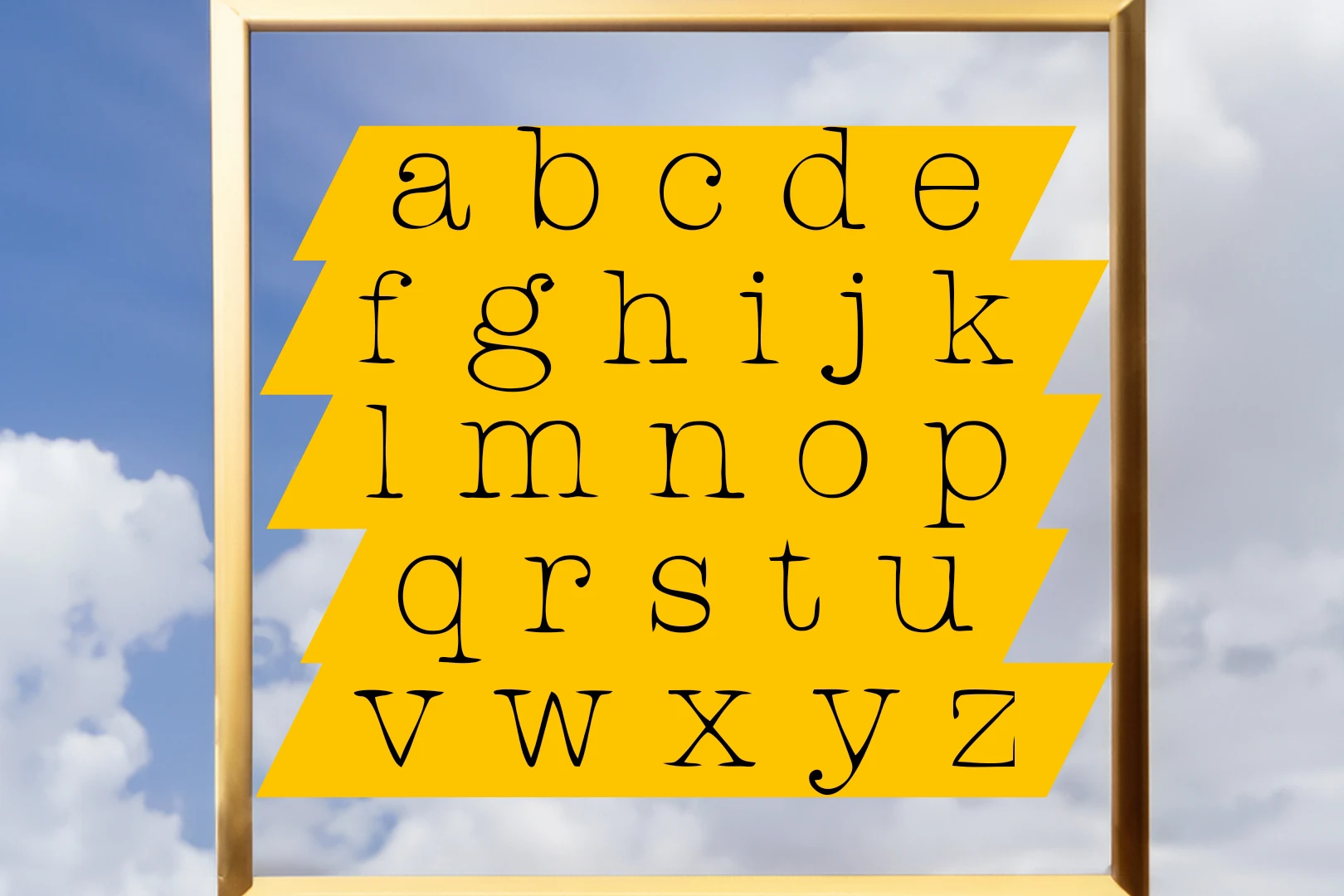
Rogers Typewriter Font
The Rogers Typewriter Font is a captivating typeface that brings the charm of vintage typewriters to modern design projects. Crafted with meticulous attention to detail by a talented designer.
It falls under the serif and typewriter categories, making it particularly suitable for designs that aim for a classic, timeless feel.
NameRogers Typewriter Font
DesignerSmall Voice Studio
StyleFancy